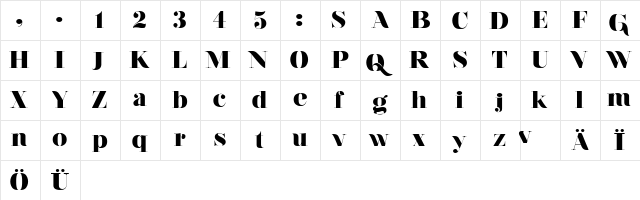
Nouvelle Vague Black Font Preview
Nouvelle Vague Black
Nouvelle Vague Black Font Details
| Style | Nouvelle Vague Black |
| Foundry | Dirk Schuster |
| Designer | Dirk Schuster |
Design Context for Nouvelle Vague Typeface
Nouvelle Vague takes a measured approach to typography — its balanced proportions and neutral character make it a reliable workhorse for both digital and print work.